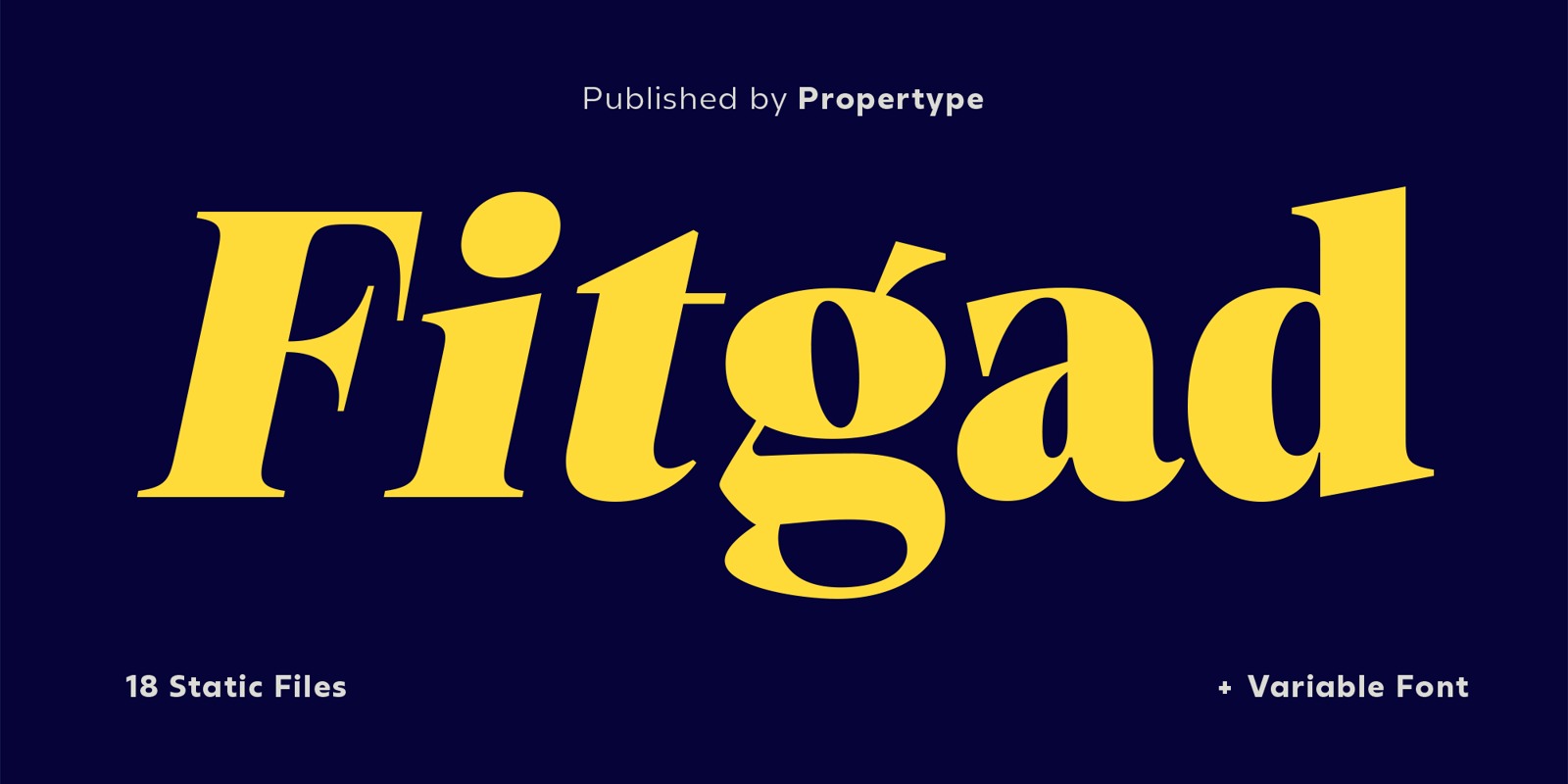
Fitgad Serif Font Family
Fitgad Serif Font Family is a flexible and reliable font created to fit multiple design needs, from branding and packaging to social media and editorial layouts. Fitgad is an elegant and warm serif typeface with a classic feel. This typeface is designed to enhance credibility.
It includes 170 fonts, both upright and italic, ranging from light to black. It also includes one variable font. OpenType features allow for the implementation of typography such as ligatures and support for multiple languages.
A good choice for branding, magazines, posters, advertisements, print, packaging, headlines, web design, and more.